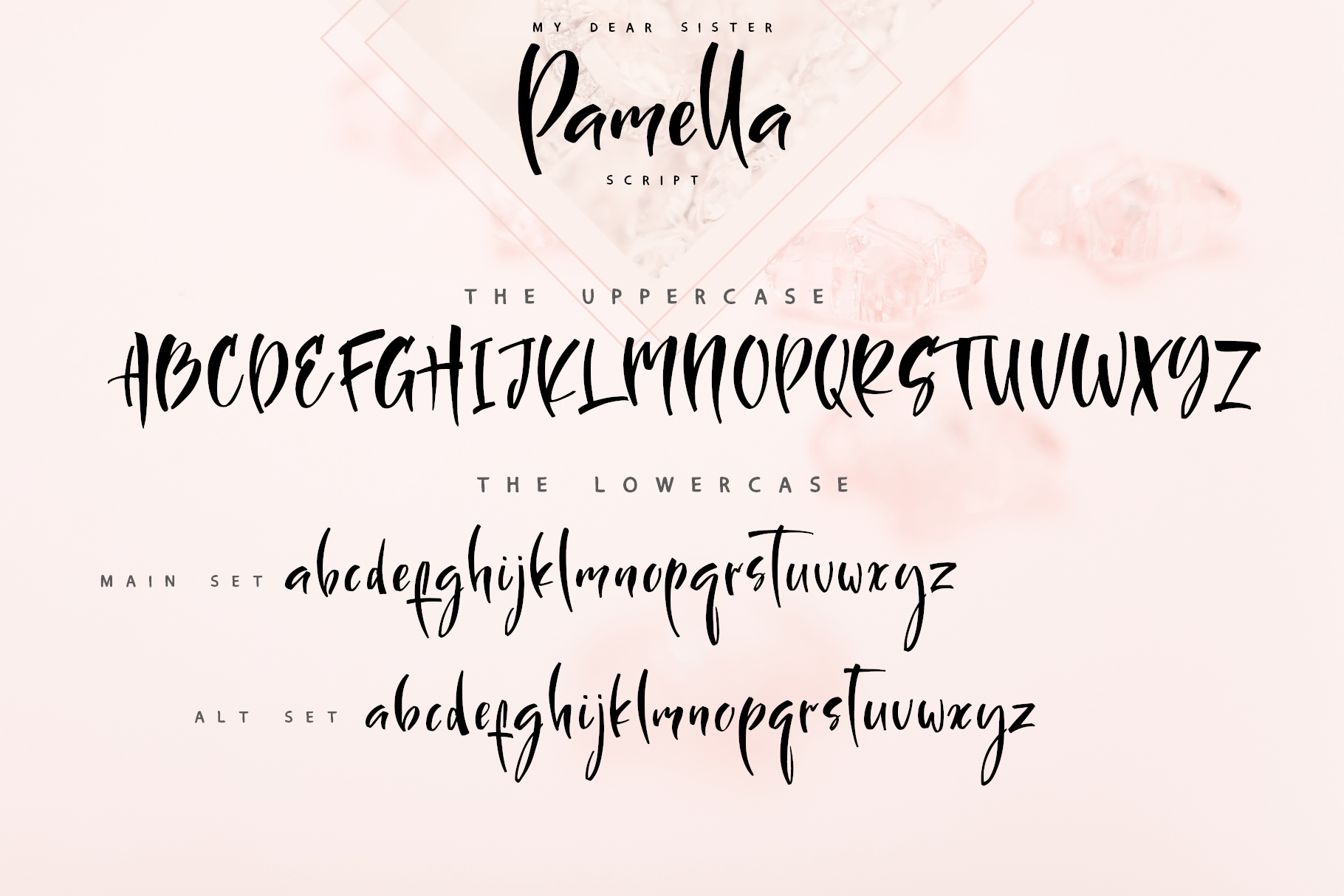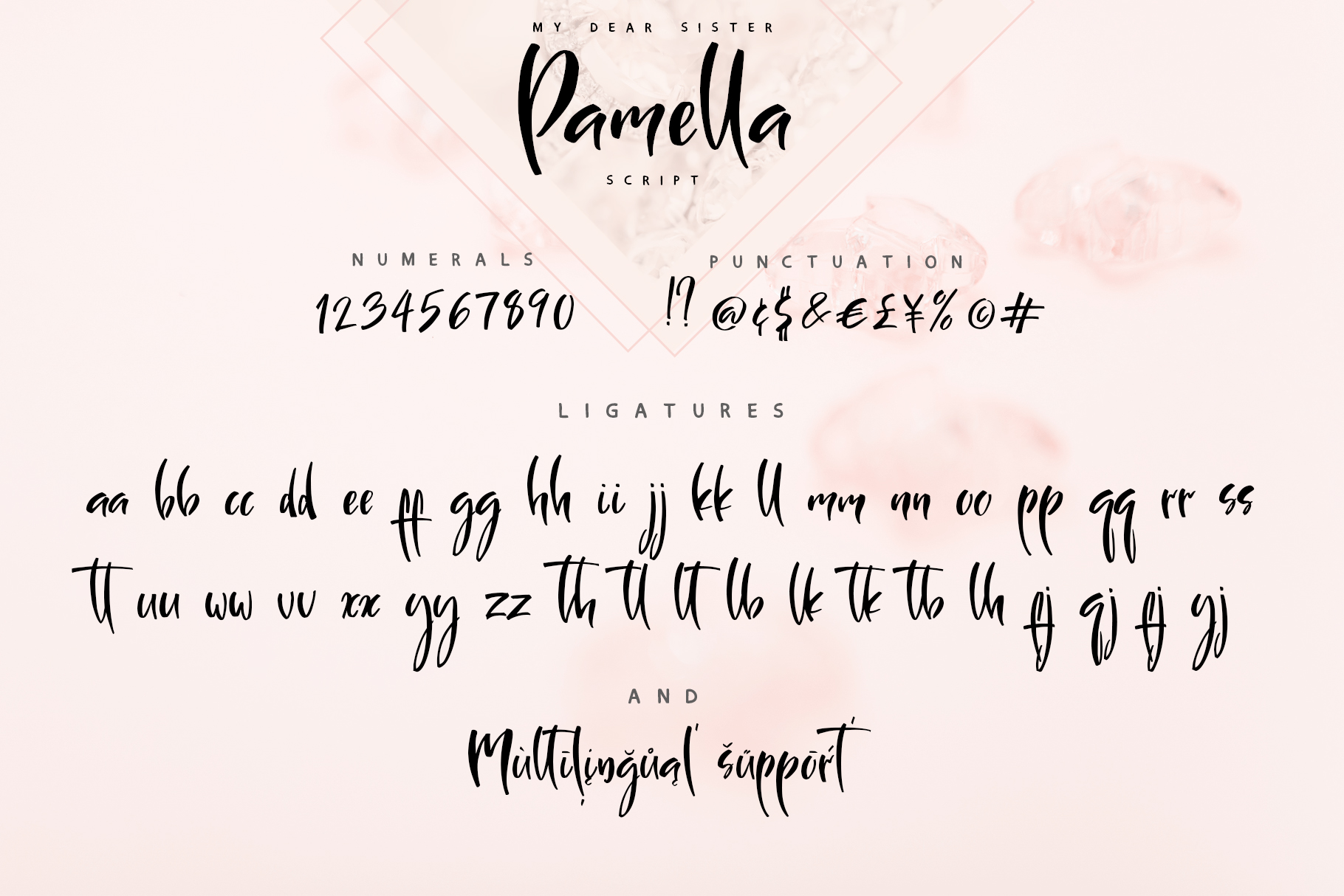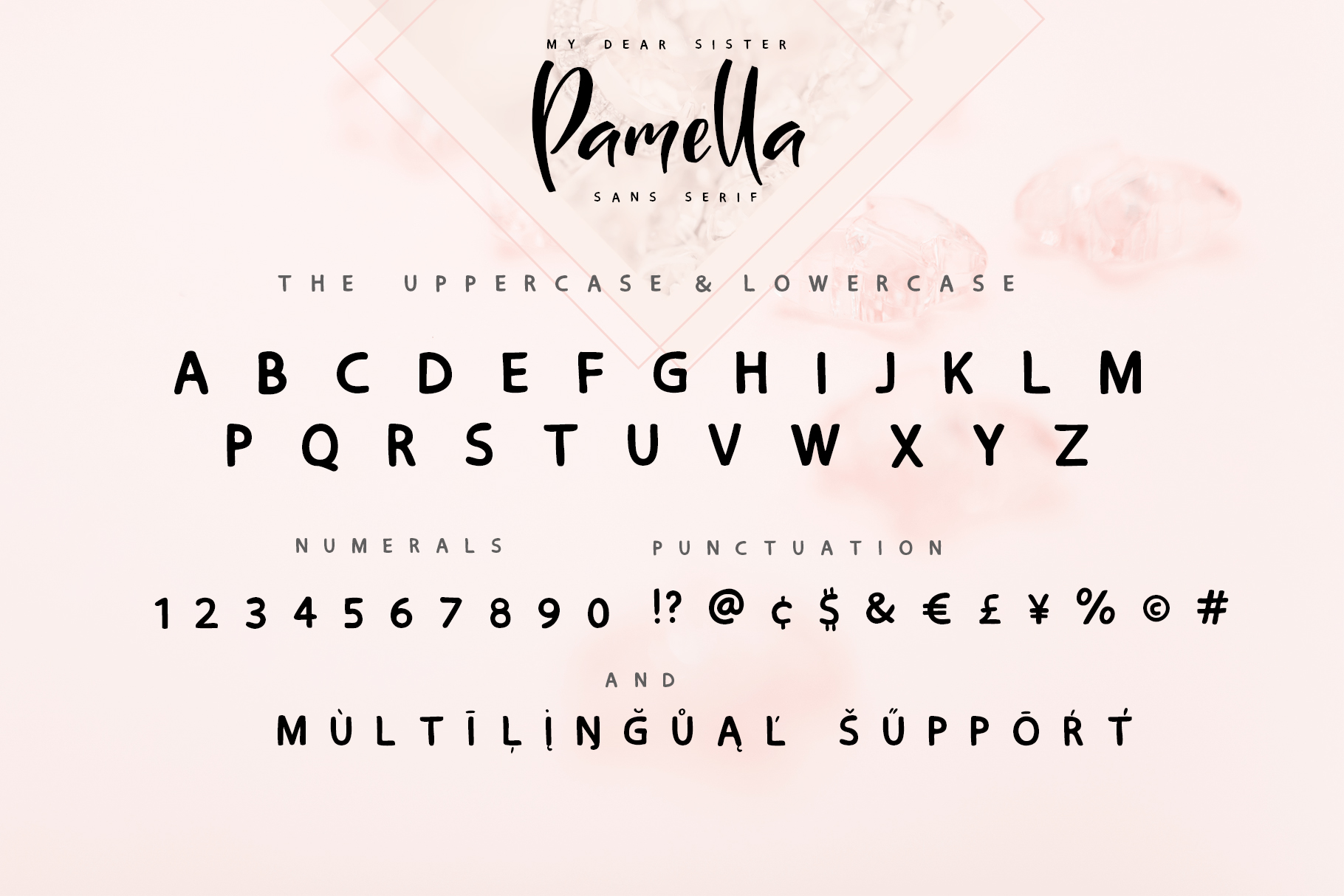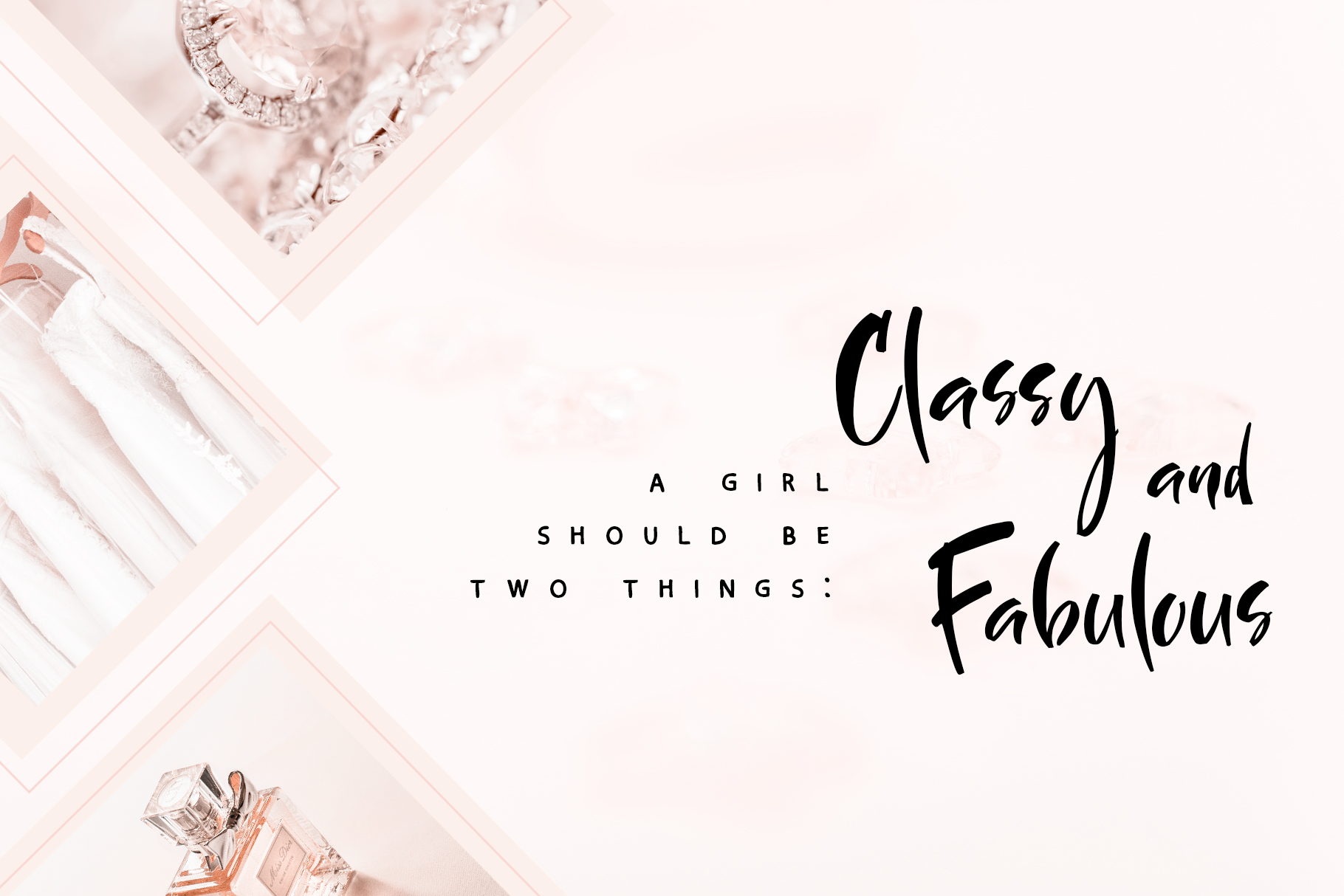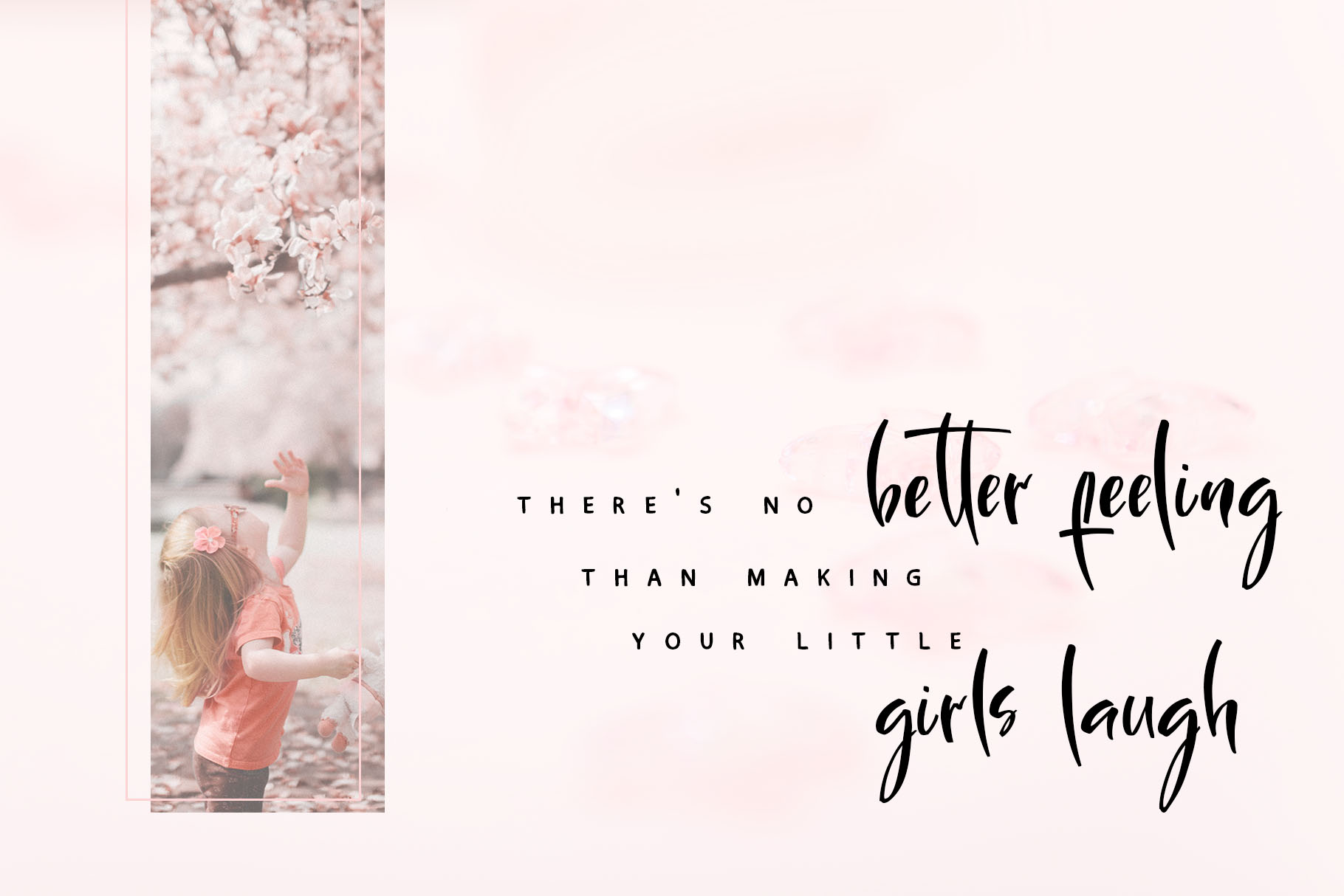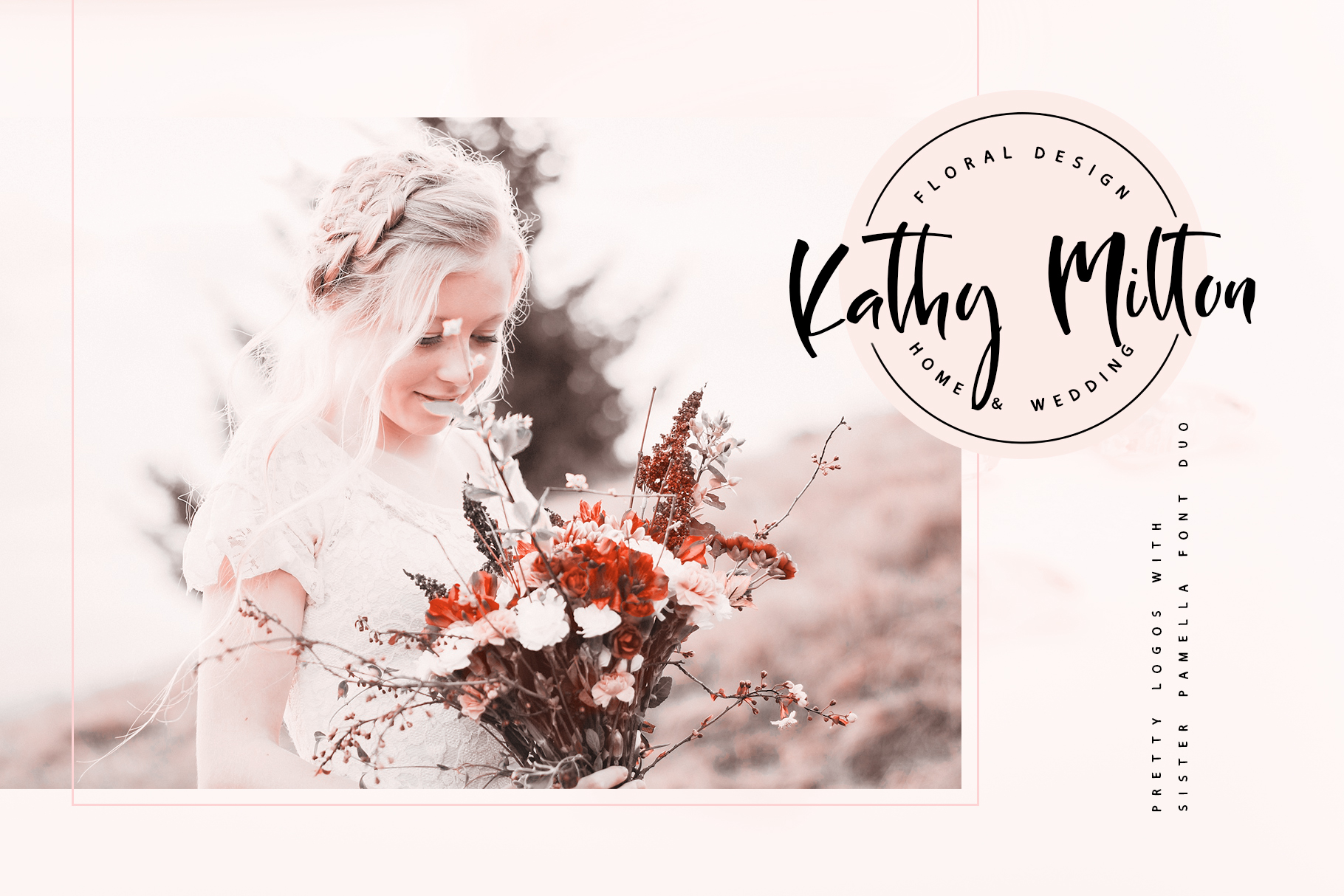
Introduction to Sister Pamella Font Font
Fonts play a crucial role in design, and the Sister Pamella Font font is a typeface that brings both character and versatility to any project. Whether you’re working on a branding project, a website, or a print design, the Sister Pamella Font font offers a unique style that can elevate your work.
With a handwritten script font and a modern sans serif font, Sister Pamella font duo will be perfect for use in all your design projects.
These fonts perfectly complement one another and can give your designs a casually chic appeal .
Key Features of Sister Pamella Font Font
Why Choose Sister Pamella Font Font?
The Sister Pamella Font font is more than just a typeface – it’s a design tool that helps you communicate your message with style and clarity. Its unique character set and versatile design make it suitable for a wide range of applications, from elegant invitations to bold headlines.
With its carefully crafted letterforms and balanced proportions, the Sister Pamella Font font ensures readability and visual appeal across all mediums.
What makes Sister Pamella Font font special?
The Sister Pamella Font font stands out with its unique design, exceptional readability, and versatility across various design applications.